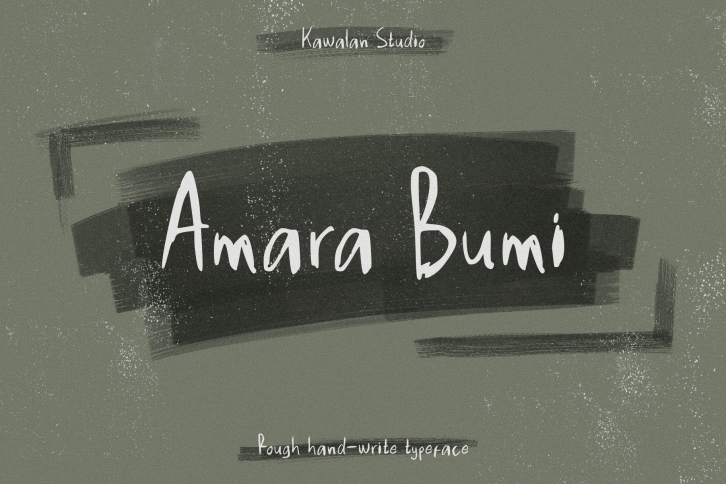
Amara Bumi means beautiful earth. A rough natural typeface giving a authentic sense to your design. You could use it for punk, naive, personal, and emo-ish theme. Amara Bumi with thin and rough stroke give a rough and brave vibes. The output you could produce with this font include any kind of advertisement such as poster, flyer, magazine, logo, and beyond.